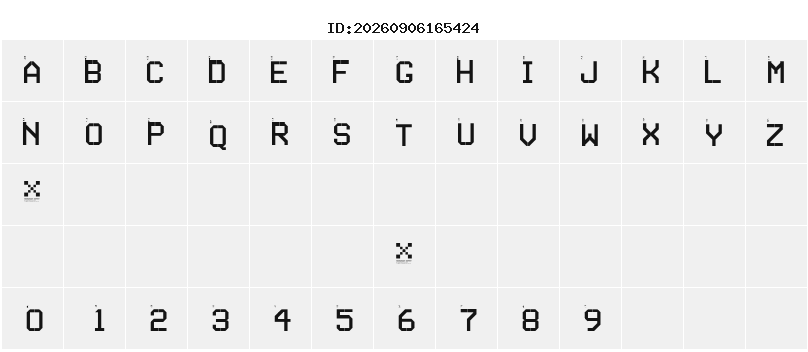
• Font Name: TSERIES
• Full Font Name: TSERIES A
About TSERIES.ttf
TSERIES.ttf is a modern, elegant sans-serif font designed for ultimate readability and visual harmony. Perfect for branding, headlines, web design, and print materials.